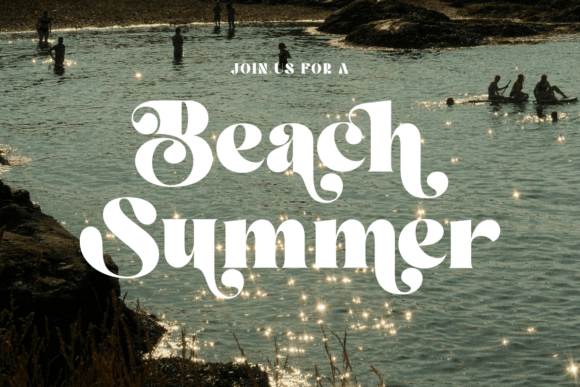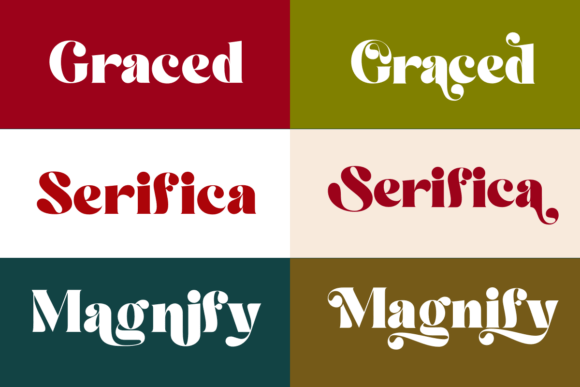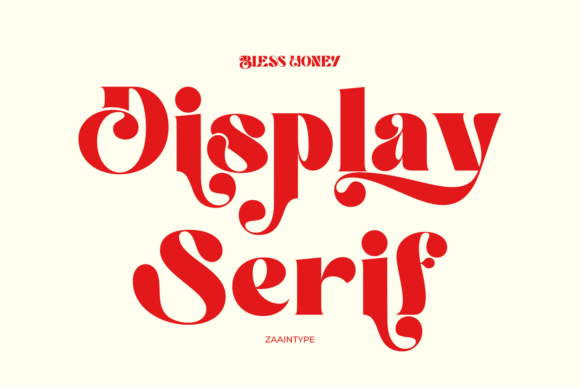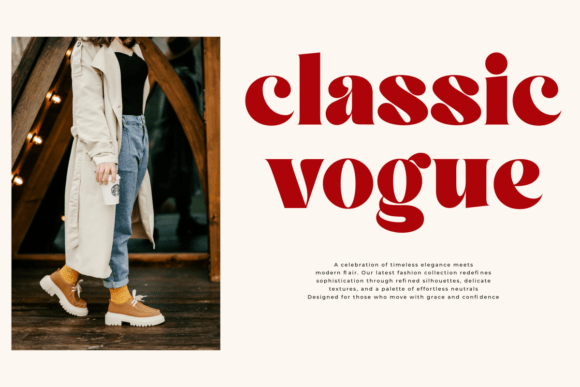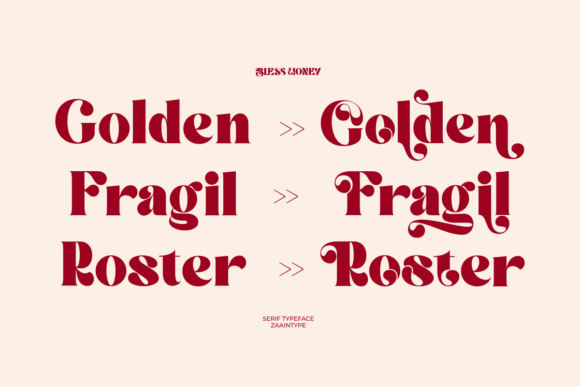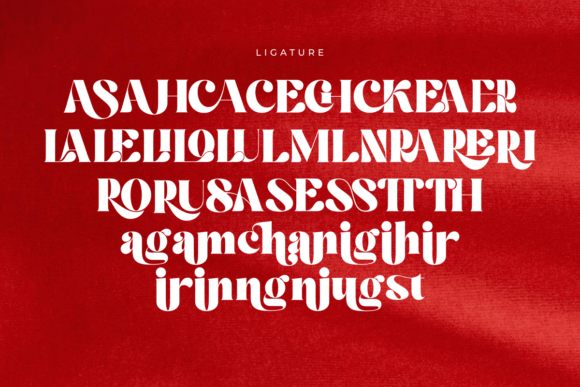
Discover the Sweet Charm of Bless Honey Font
Have you ever stumbled upon a font that feels like a warm hug on a chilly day? That’s exactly what happens when you encounter the Bless Honey Font – a charming serif typeface that exudes timeless elegance and sophistication. Its refined contrast and smooth curves make it the perfect companion for designers seeking to add a touch of warmth and character to their projects.
Whether you’re working on a high-end fashion brand, crafting editorial designs, or creating bespoke packaging, Bless Honey Font is the ideal choice. Its delicate yet confident presence makes it a valuable asset for designers who want to elevate their work with a sense of beauty and refinement. With Bless Honey Font, you can infuse your designs with a sense of sophistication and charm that’s sure to leave a lasting impression.
- Unique Characteristics: Bless Honey Font features a unique blend of modern and traditional design elements, making it suitable for a wide range of applications, from fashion and beauty to lifestyle and wellness.
Bless Honey Font Review
Overall, I’m quite impressed with the Bless Honey font. It has a unique charm that can add a touch of warmth and personality to any design project.
- The font’s organic feel, which is perfect for projects that require a natural and earthy vibe.
- The high level of detail and texture, which gives the font a unique and interesting appearance.
- The font’s versatility, which can be used for a variety of design projects, from logos to packaging and more.
- The font may not be the best choice for projects that require a more formal or professional look.
- The high level of detail and texture may make the font difficult to read in certain contexts.
- The font may not be fully supported on all devices or platforms, which could cause compatibility issues.
I would recommend the Bless Honey font for projects that require a unique and creative look. While it may have some limitations, the font’s charm and versatility make it a great choice for designers who want to add a personal touch to their work.
Tips for Getting the Most Out of Bless Honey Font
For optimal results, use Bless Honey Font in combination with other elegant and minimalist designs. Experiment with different font sizes, colors, and styles to achieve the desired aesthetic.
Bless Honey Font is ideal for:
- Business cards and branding materials
- Stationery and greeting cards
- Magazine and editorial layouts